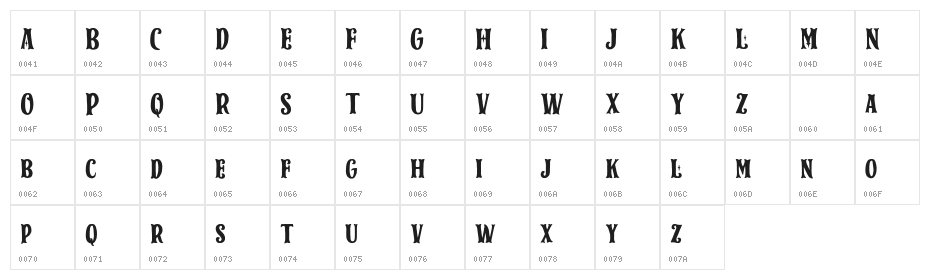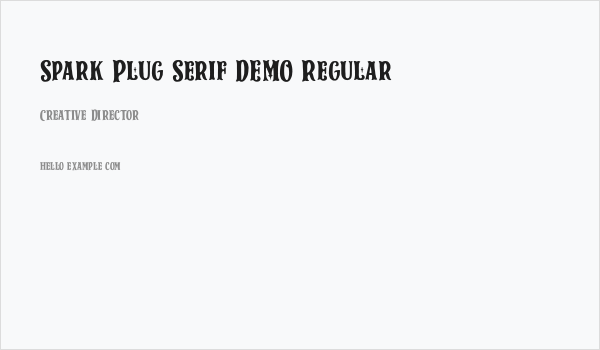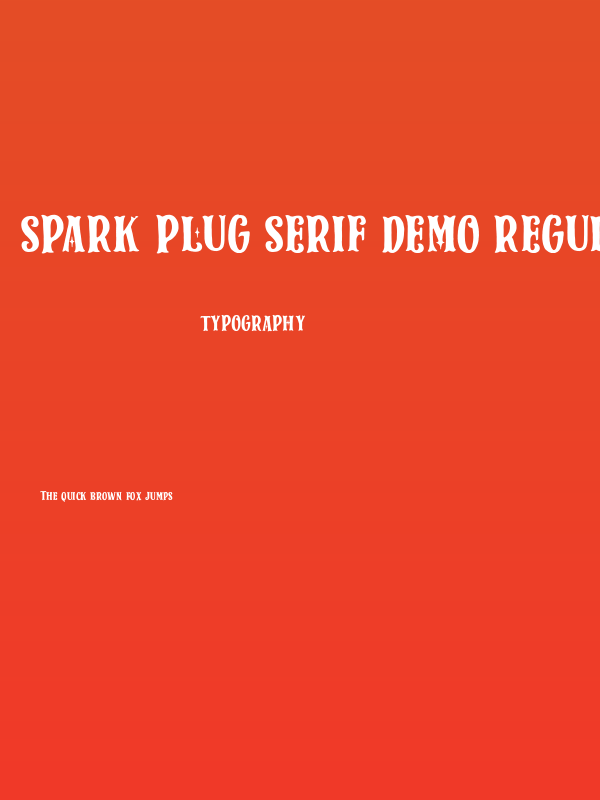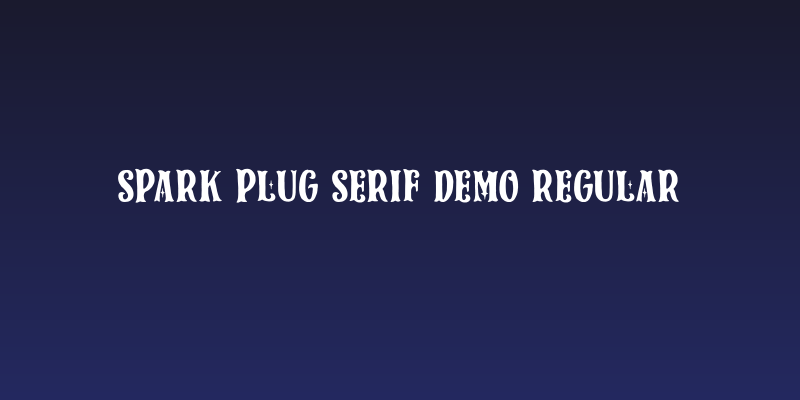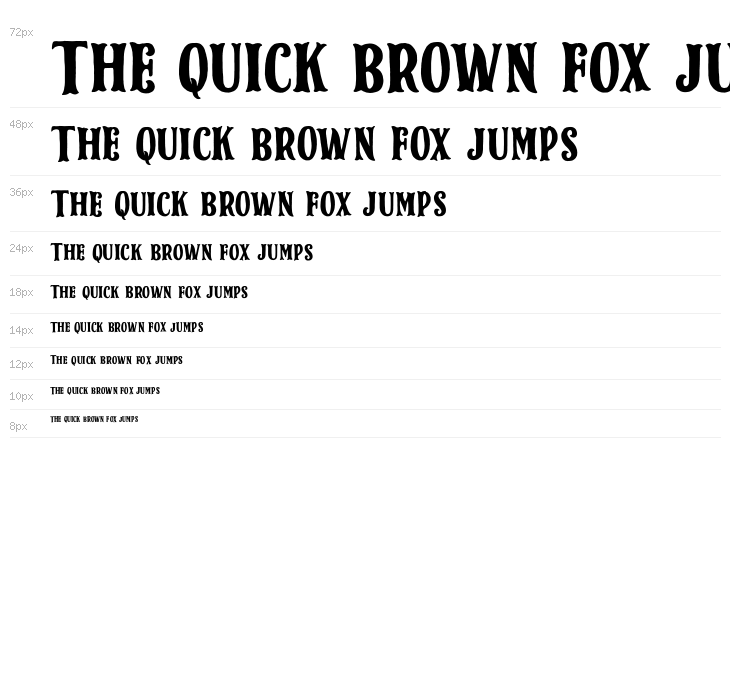
Spark Plug Serif DEMO Regular Font
Spark Plug Serif DEMO Regular Description
This font features a bold and dramatic design with sharp, angular serifs and a slightly condensed structure. The characters exhibit a unique blend of vintage and modern aesthetics, with high contrast between thick and thin strokes. The uppercase letters are particularly striking, with ornamental elements that add a touch of flair and elegance. The lowercase letters maintain the same boldness, ensuring consistency across the typeface. This font's distinctive style makes it ideal for projects that require a strong visual impact.
| Proposed Projects | Perfect for branding, poster design, book covers, and any project needing a strong, eye-catching typeface. |